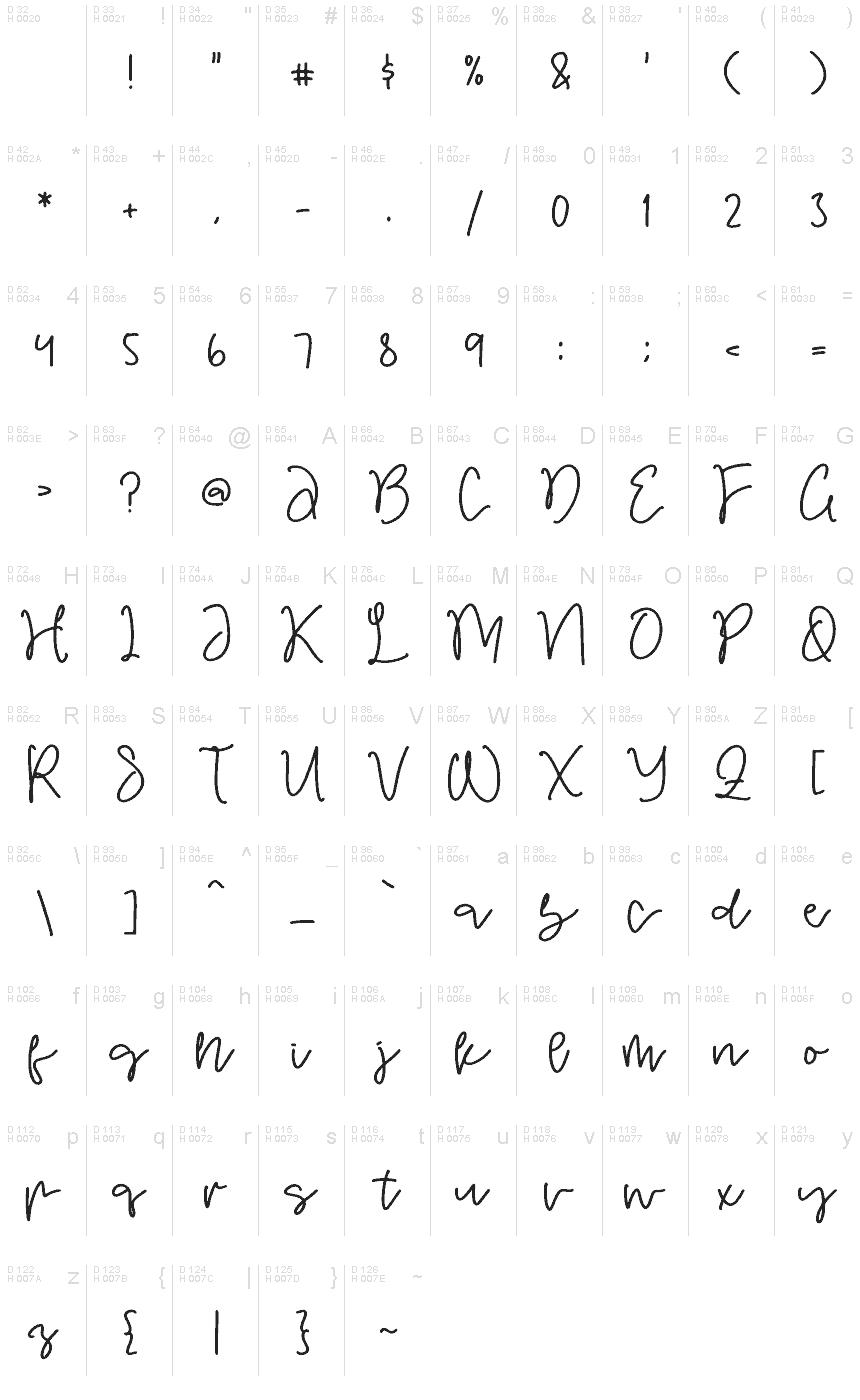
Scrymble Hastter
Scrymble Hastter font by Perspectype Studio - Letterena.com is a free handwritten font with an elegance like no other. In its lightest weight, the scripting casually flows across every character that forms flawless blocks of text. Perfecting the motions and strokes of each character to appear smooth, it brings a modern usage to every project.
Impress others with a personal touch brought forward by Scrymble Hastter and add it to branding designs and packaging projects. Create an engaging presentation for book covers and titles, social media posts, or greeting cards where expressive flair becomes part of your written messages.